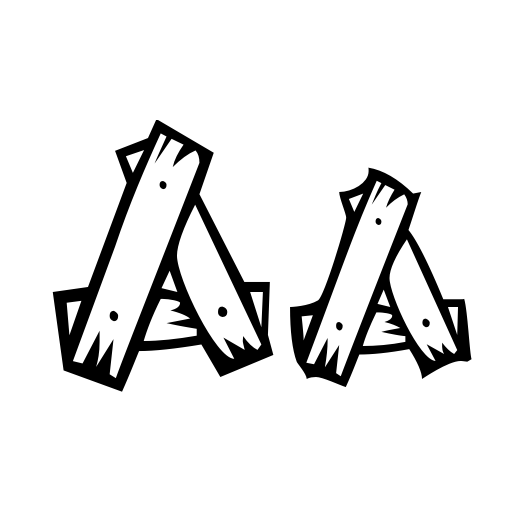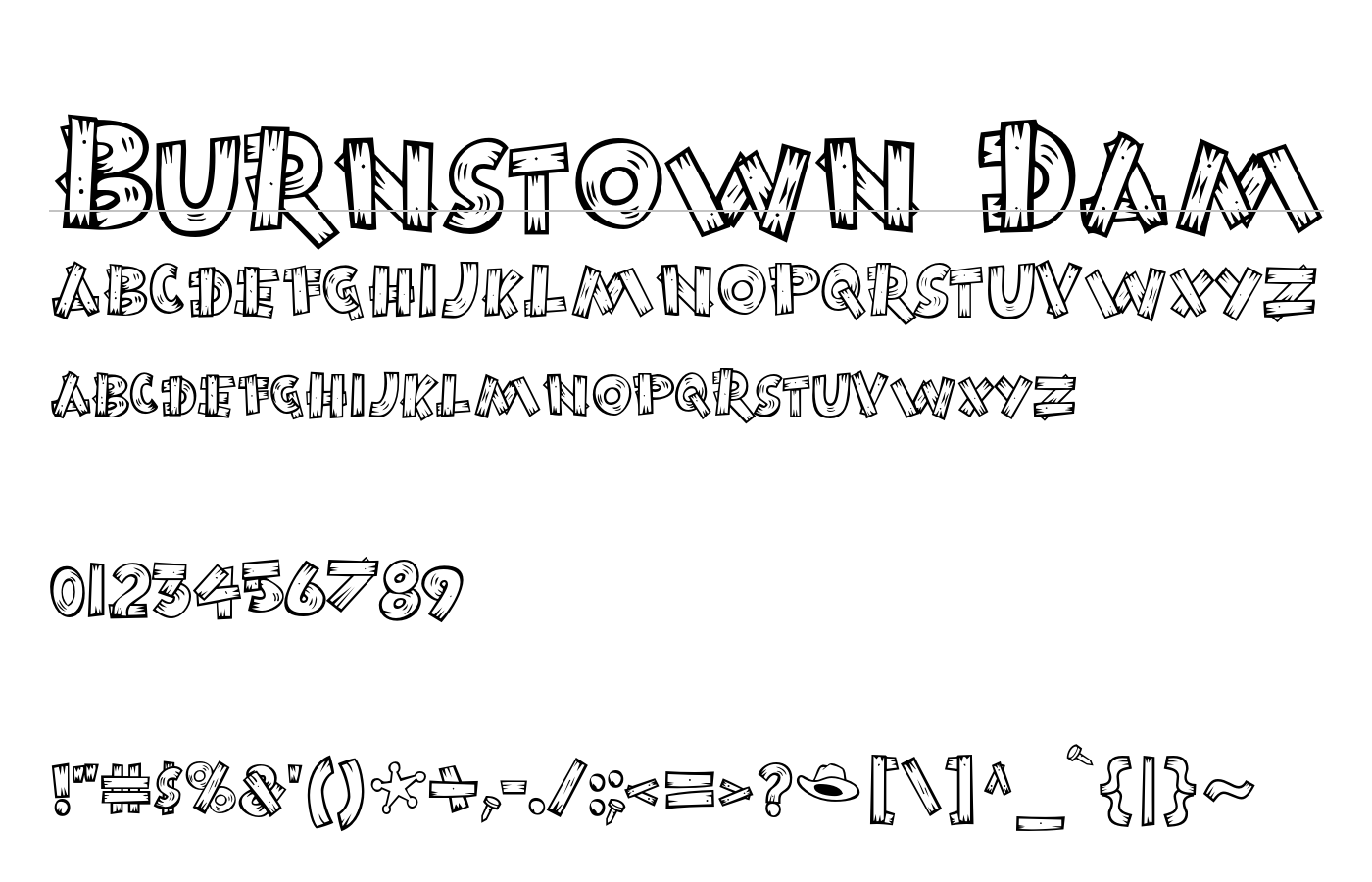
Burnstown Dam is a playful and bold display font characterized by its quirky, hand-drawn wood-texture style. With its thick, uneven strokes and slightly tilted letterforms, it brings a fun, casual, and rustic vibe perfect for projects that want a distinctive, energetic look. Ideal for eye-catching headlines, children's materials, or creative branding, this font adds a lively, approachable personality wherever it’s used.
Burnstown Dam Font
About Burnstown Dam Font
| Font family | Burnstown Dam Font |
| Designer | Raymond Larabie |